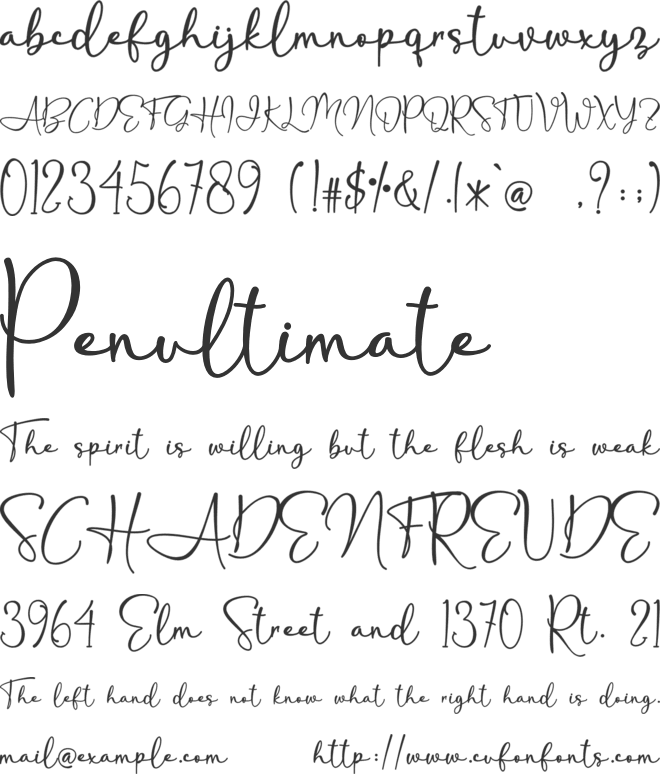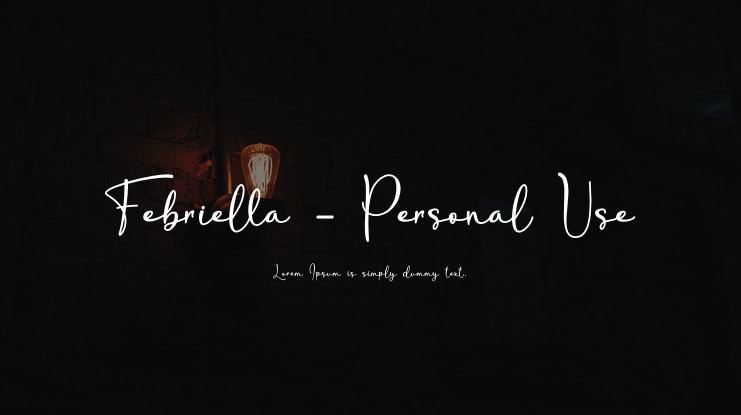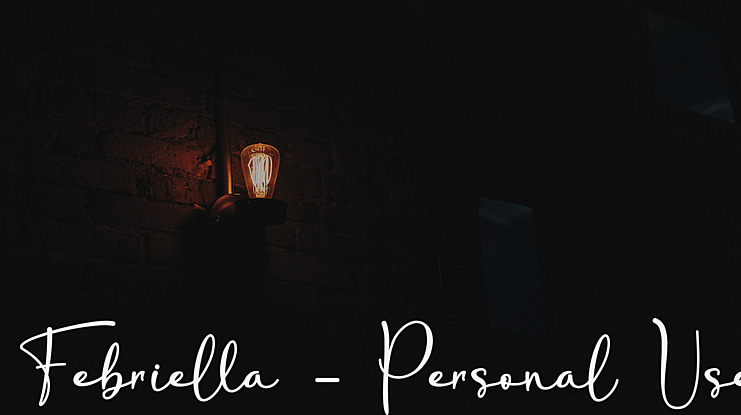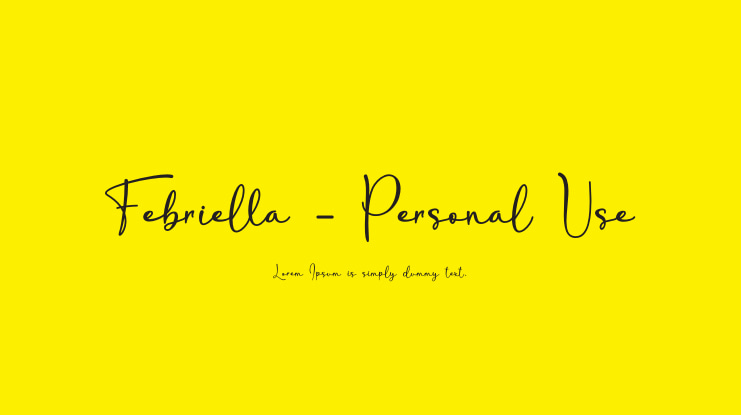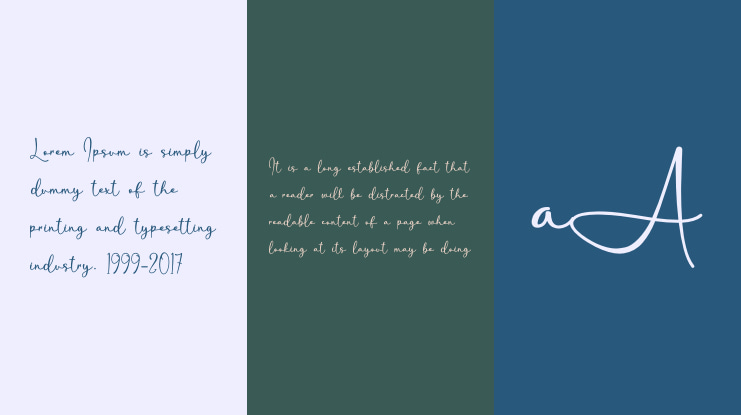
Febriella - Personal Use Font
Febriella
Febriella is a Handwritten Style font by Letterafa Studio. It has flowing letters that will give your designs a unique and sweet look. Febriella font is perfect; logos, greeting cards, a package design, a brand identity, craft design, any DIY project, book title, wedding invitation, packaging, and more.
- Basic Uppercase and Lowercase
- Alternate & Swashes
- Ligature
- Number and Punctuation
- Multilingual
++ Febriella Monogram ++